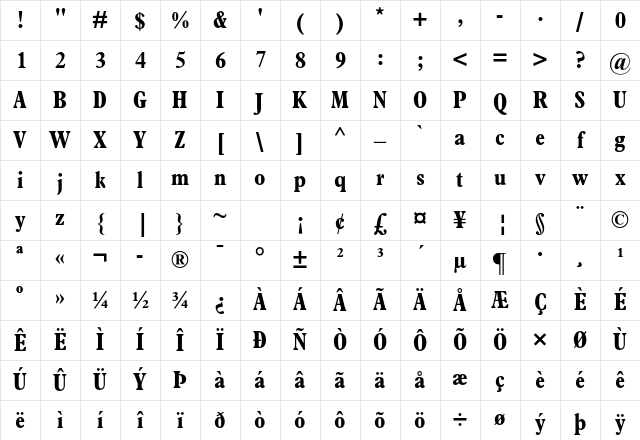
Plantin Std Bold Condensed
Style: Bold Condensed
Designer: F.H. Pierpont
Design Context for Plantin Std
Plantin Std is a composed and adaptable typeface that performs quietly and consistently across a wide range of design contexts. Its bold stroke weight gives it real presence on the page. Its narrow stance lets it pack a punch even in space-constrained designs.